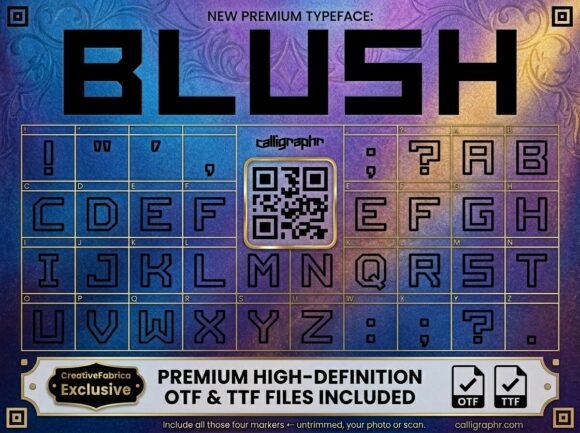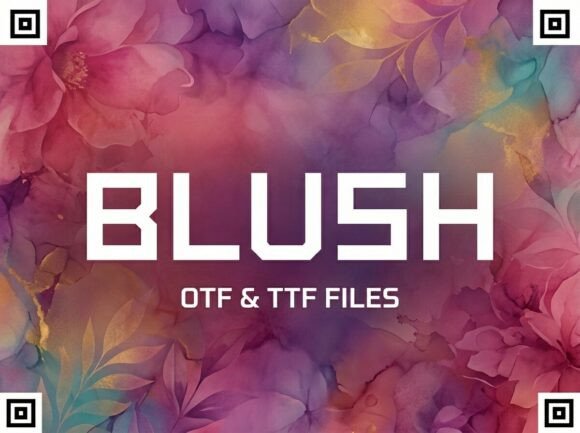
Introducing Blush Font: The Epitome of Sleek and Sophisticated Design
In the world of typography, fonts play a crucial role in defining the aesthetic and tone of a brand, product, or editorial content. For designers and crafters seeking to make a statement with their visual creations, the Blush font is an exceptional choice. This razor-sharp display font embodies a sleek and sophisticated soul, perfect for those who aim to define the future of fashion with their work.
Design Characteristics of Blush Font
The Blush font boasts bold, geometric letterforms that are instantly recognizable. One of its standout features is the rhythmic, 45-degree angular cuts that add a dynamic and modern touch to the letters. Coupled with wide, modern proportions, Blush evokes a high-end runway aesthetic that is both luxurious and captivating. These design elements ensure that the font exudes a sense of precision and structural integrity, making it perfect for applications where a strong visual impact is desired.
Ideals Uses of Blush Font
Given its unique characteristics, Blush is ideally suited for several high-end applications:
- Independent Luxury Branding: For brands that aim to convey a sense of exclusivity and high-end quality, Blush offers a typographic solution that is both luxurious and distinctive.
- Modern Cosmetic Packaging: In the competitive world of cosmetics, standing out on store shelves is crucial. Blush can help brands achieve this with its modern and sophisticated look.
- High-Fashion Editorial Layouts: For fashion editors and designers, Blush provides a typographic voice that is both authoritative and stylish, perfect for magazine covers, editorials, and fashion blogs.
- High-Impact Social Media Headers: In the digital realm, capturing attention is key. Blush’s minimalist yet magnificent aesthetic makes it an excellent choice for social media headers that need to make a strong impression.
The Benefits of Using Blush Font
Choosing Blush for your design projects comes with several benefits:
- Versatility: Despite its strong personality, Blush is versatile enough to be used across various platforms and mediums, from digital screens to print materials.
- Uniqueness: In a sea of fonts, Blush stands out with its distinctive angular cuts and modern proportions, ensuring your designs don’t go unnoticed.
- Professionalism: The font’s sleek and sophisticated design lends an air of professionalism to any project, making it suitable for high-end clients or personal branding.
Tips for Using Blush Font Effectively
To maximize the impact of Blush in your designs, consider the following tips:
- Pair with Simplicity: Blush’s strong personality works best when paired with simpler design elements. Avoid clutter and let the font be the focal point.
- Experiment with Colors: While Blush inherently carries a luxurious feel, experimenting with different colors can further enhance its aesthetic. Metallic or monochromatic schemes often work well.
- Consider Layout: The modern and geometric nature of Blush means it can be used in a variety of layouts. However, ensuring sufficient white space can help highlight its sleek lines and proportions.
Blush font offers designers and crafters a powerful tool to define the future of fashion with their creations. Its unique blend of bold geometry, modern proportions, and sleek sophistication makes it an ideal choice for luxury branding, high-end editorial content, and impactful digital communications. By incorporating Blush into your typographic arsenal, you’re equipped to produce visually stunning and memorable designs that stand at the forefront of fashion and style.